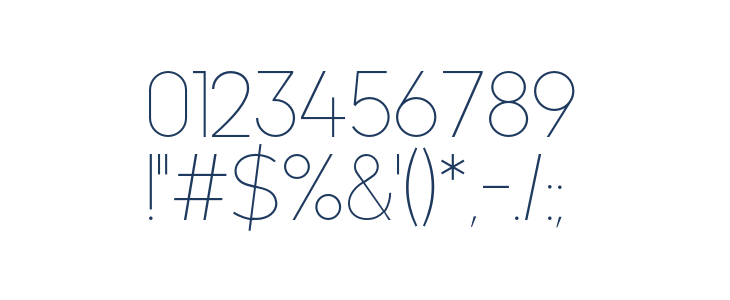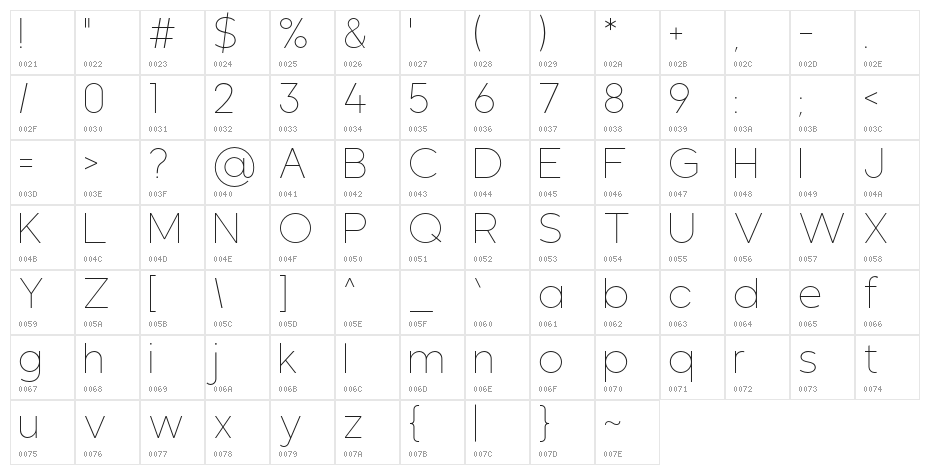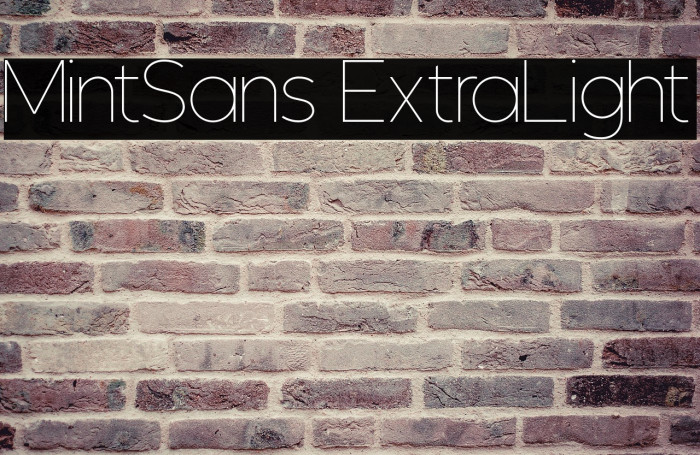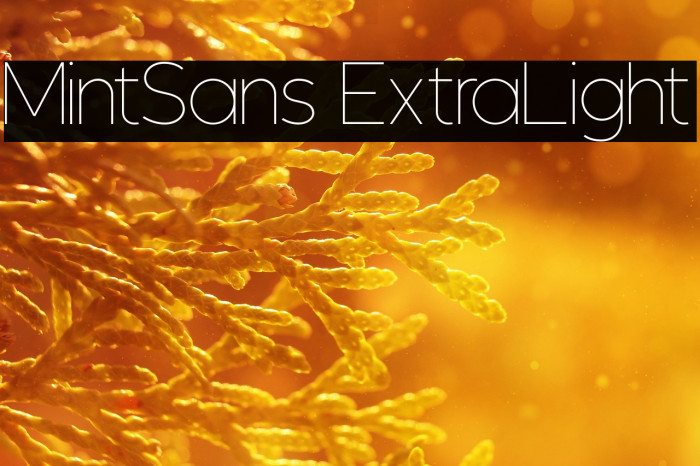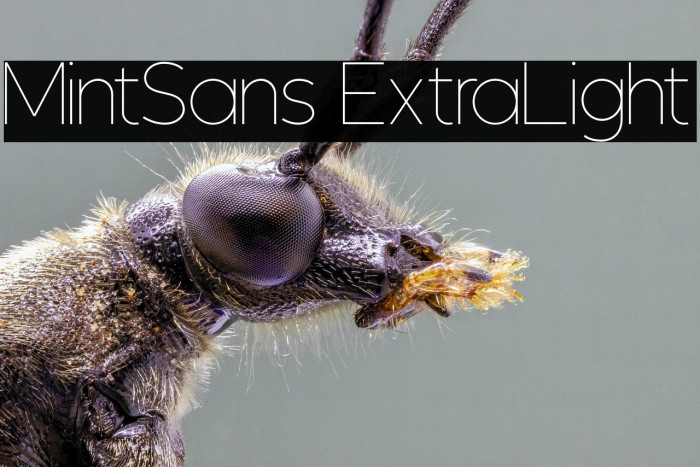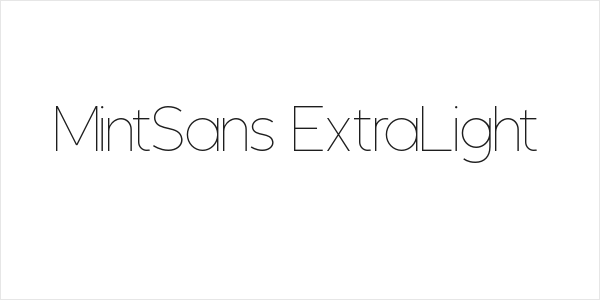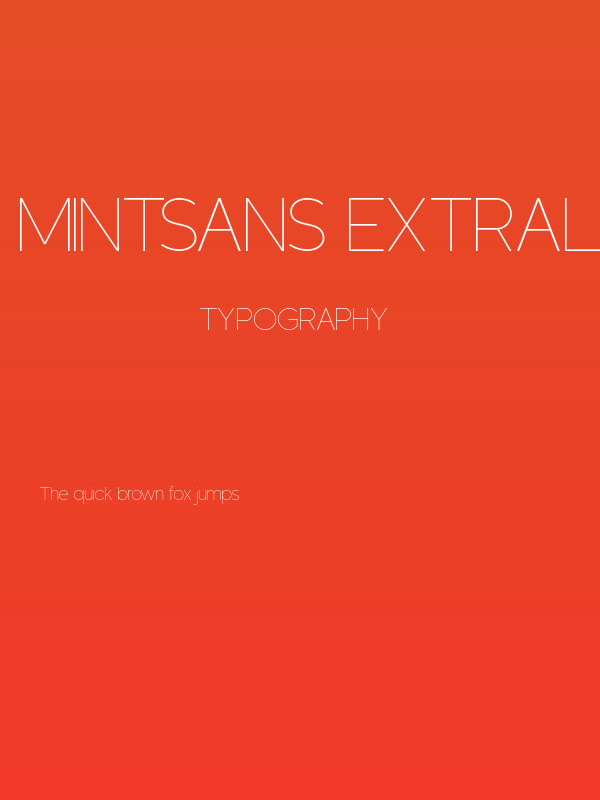
MintSans ExtraLight Font
MintSans ExtraLight Description
This font features a clean and minimalist design with an extra light weight, offering a modern and sleek appearance. The characters are crafted with a geometric precision, emphasizing simplicity and clarity. The uppercase and lowercase letters maintain a consistent height, contributing to a uniform and balanced look. The numerals and special characters are designed with the same attention to detail, ensuring readability and elegance. The overall style is contemporary, making it suitable for a variety of design applications where a subtle yet sophisticated touch is desired.